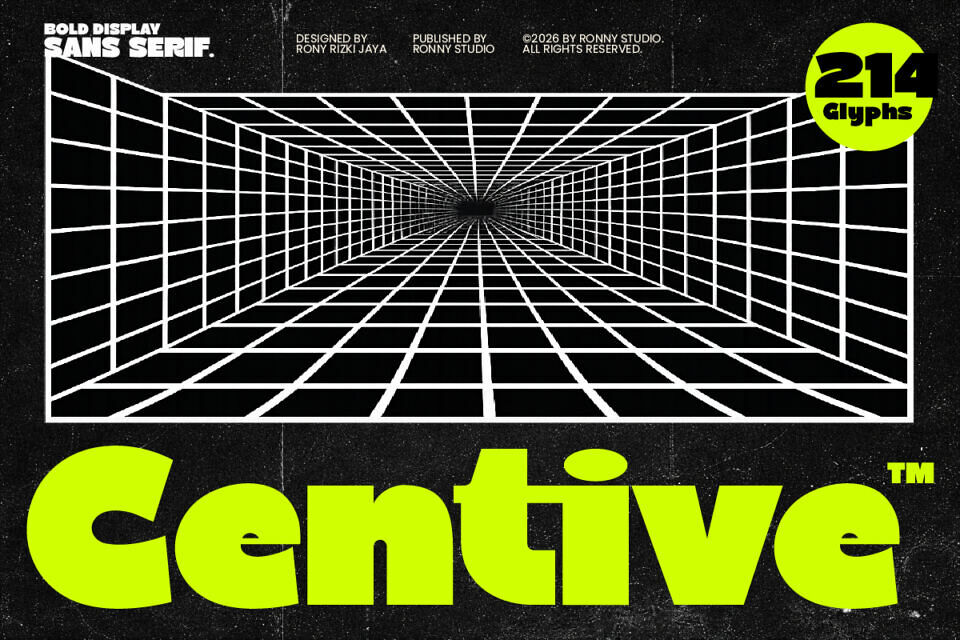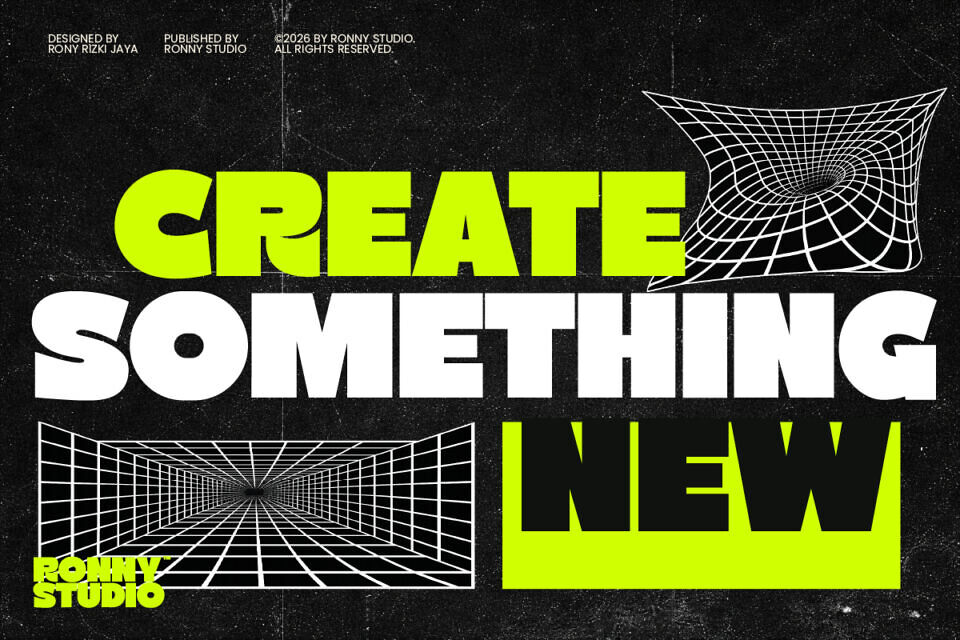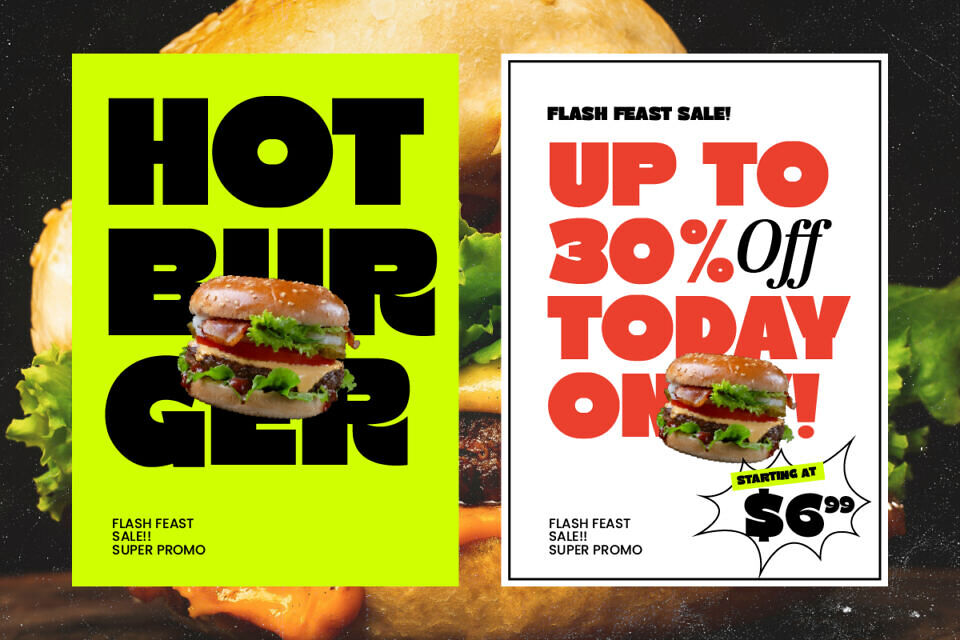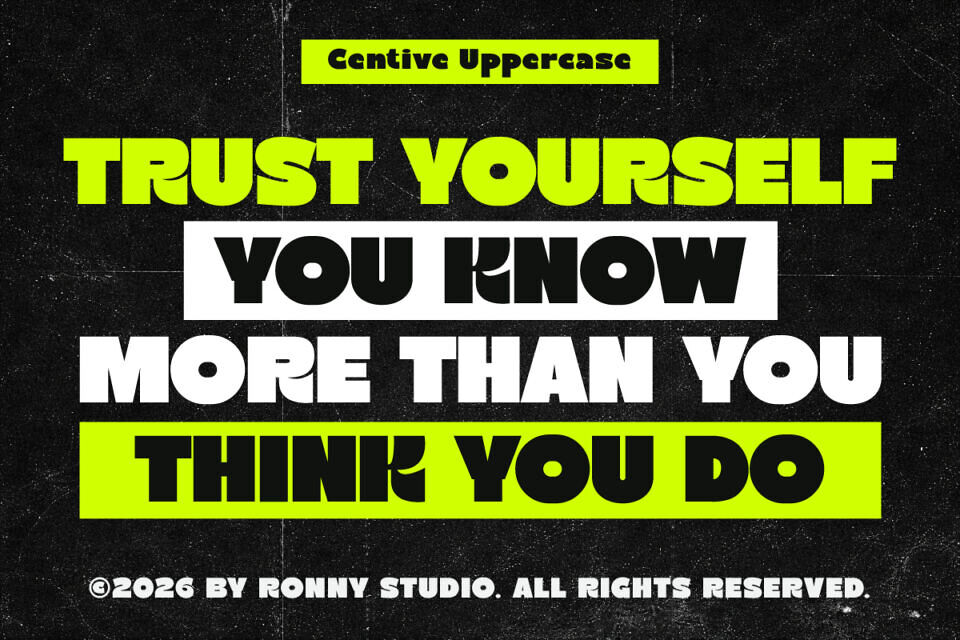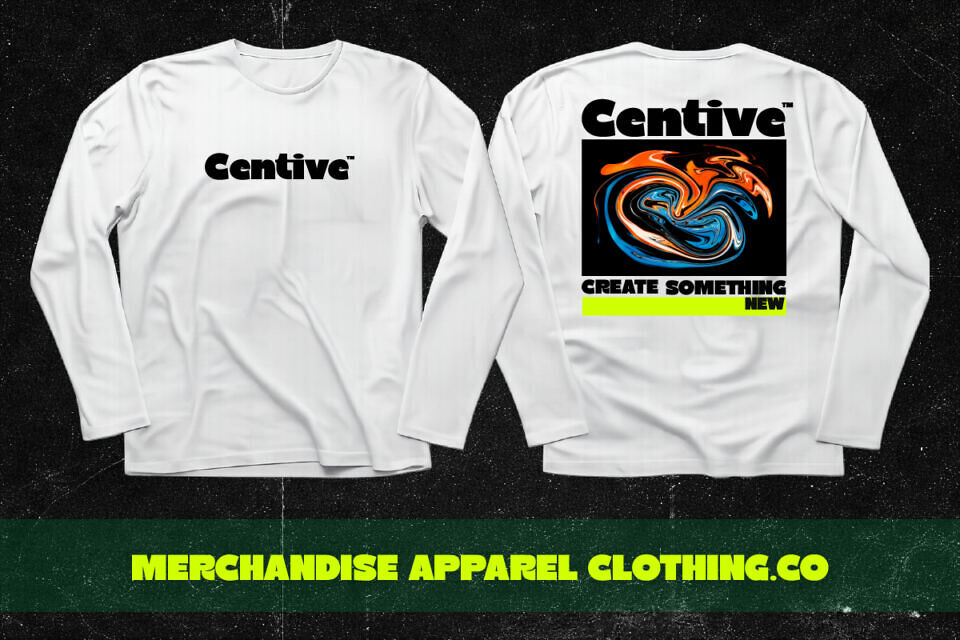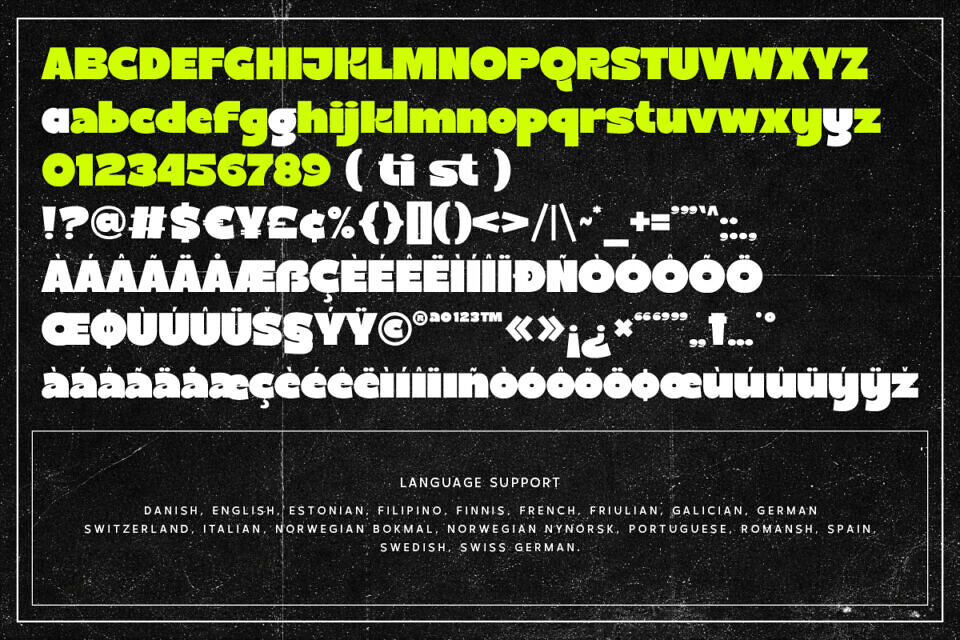
Centive Font
Centive is a bold display sans serif built with power, confidence, and a futuristic edge. Featuring thick geometric forms and strong visual weight, this font delivers an impactful presence that instantly commands attention.
Inspired by retro-futuristic grids and modern tech aesthetics, Centive blends bold minimalism with a dynamic urban feel — making it perfect for high-impact visual communication. Its solid structure and clean cuts create a confident, contemporary look that works effortlessly across digital and print designs.